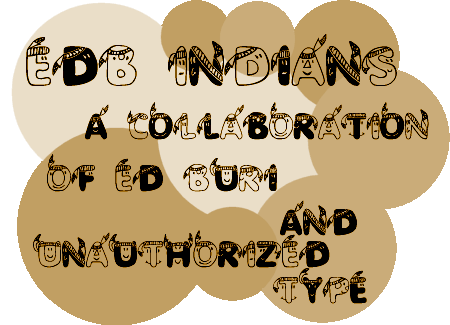
"What exactly is a Thanksgiving font?" you ask. Well, this is the closest thing I could find to one. The problem is that I'm a little too late for Thanksgiving of '97. Maybe next year (or any year after that...)
I'm sorry I could not accommodate the request for international characters in this font. I was only provided the ones I used.